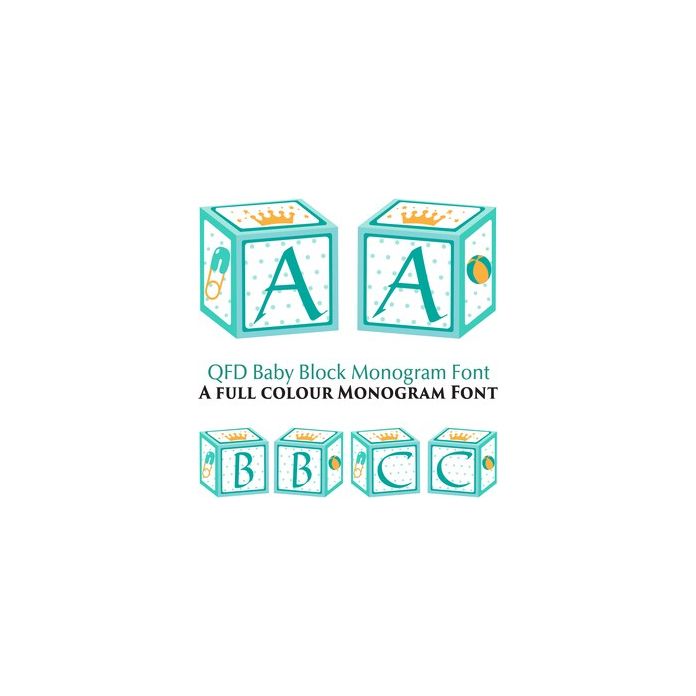
Capital letters make the blocks facing towards the right, lower case letters make the blocks facing towards the left. Great for personalizing cards, scrapbook pages, family trees and more!